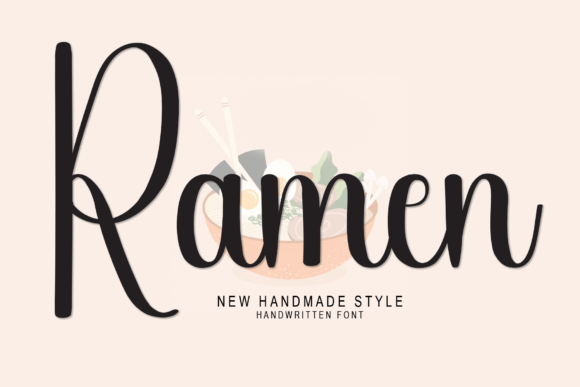
Prepare to be mesmerized by Ramen Font, a captivating script font that exudes charm and charisma. Created by the renowned Roronoa zoro.S.P.D., this font is a visual masterpiece, thoughtfully crafted to elevate your designs to new heights.
Immerse yourself in the delightful world of Ramen Font, where each character dances across the page with playful elegance. Its graceful strokes and whimsical curves create an irresistible charm that adds a touch of magic to any project.
Whether you're designing wedding invitations, greeting cards, posters, or social media graphics, Ramen Font is your perfect companion. Its versatility knows no bounds, allowing you to effortlessly create designs that captivate and inspire.
With Ramen Font, you'll embark on a creative journey where your imagination takes center stage. Express your individuality, share your heartfelt messages, and leave a lasting impression with every design you create.